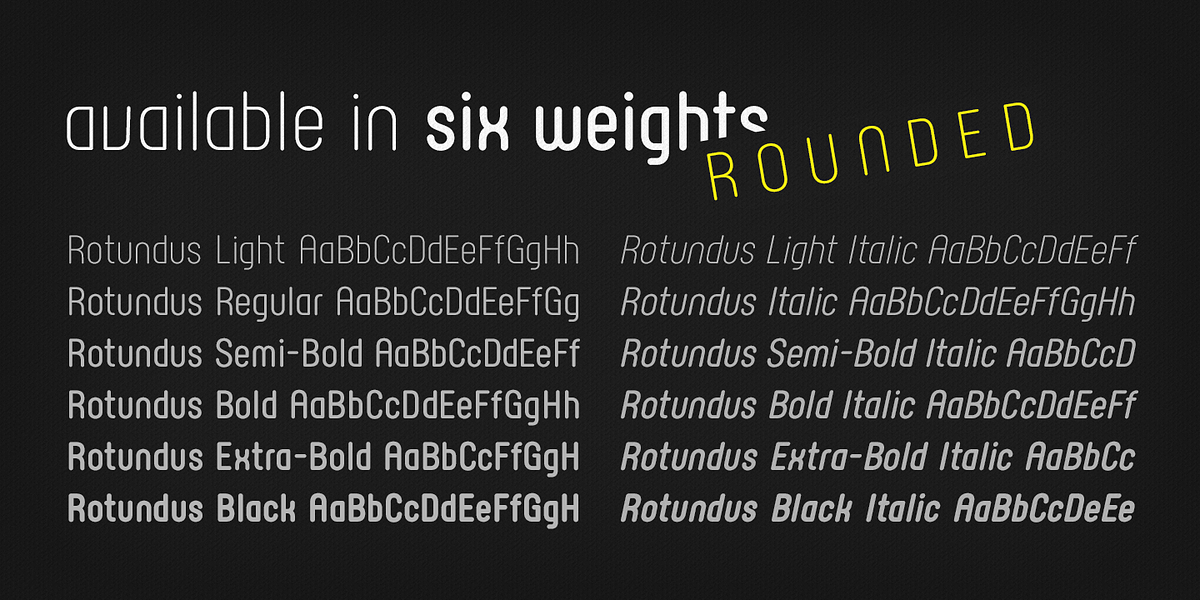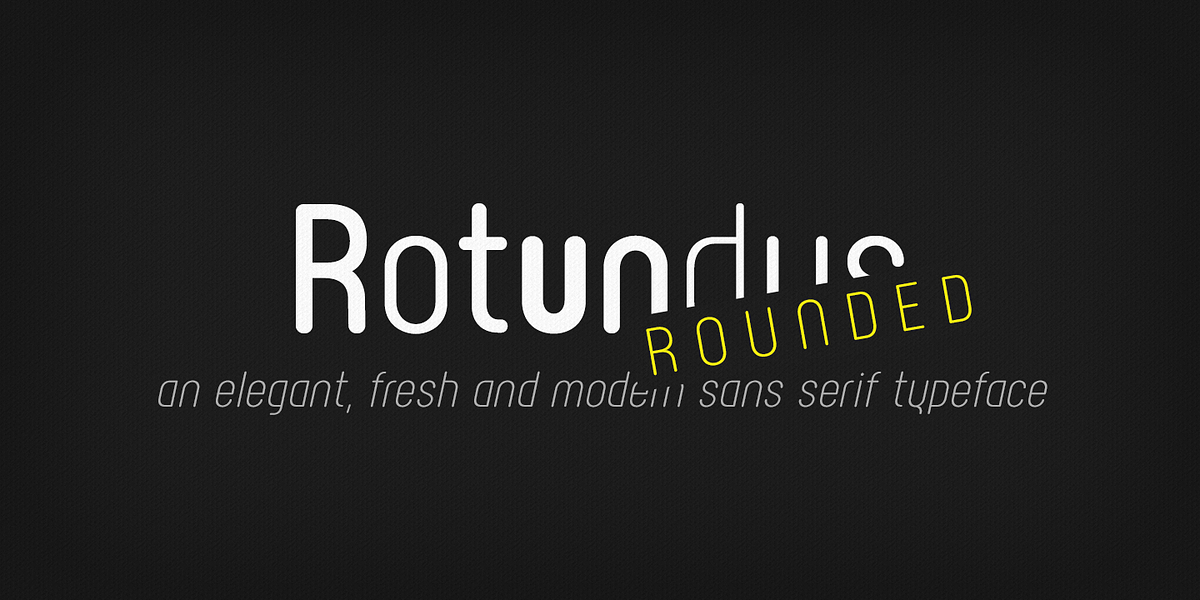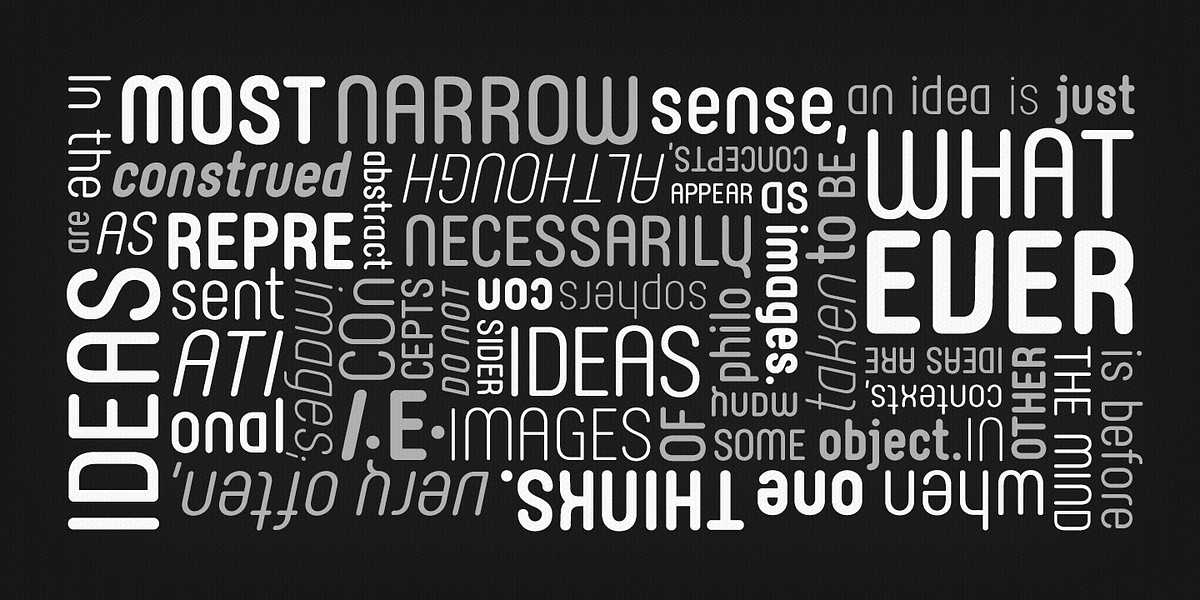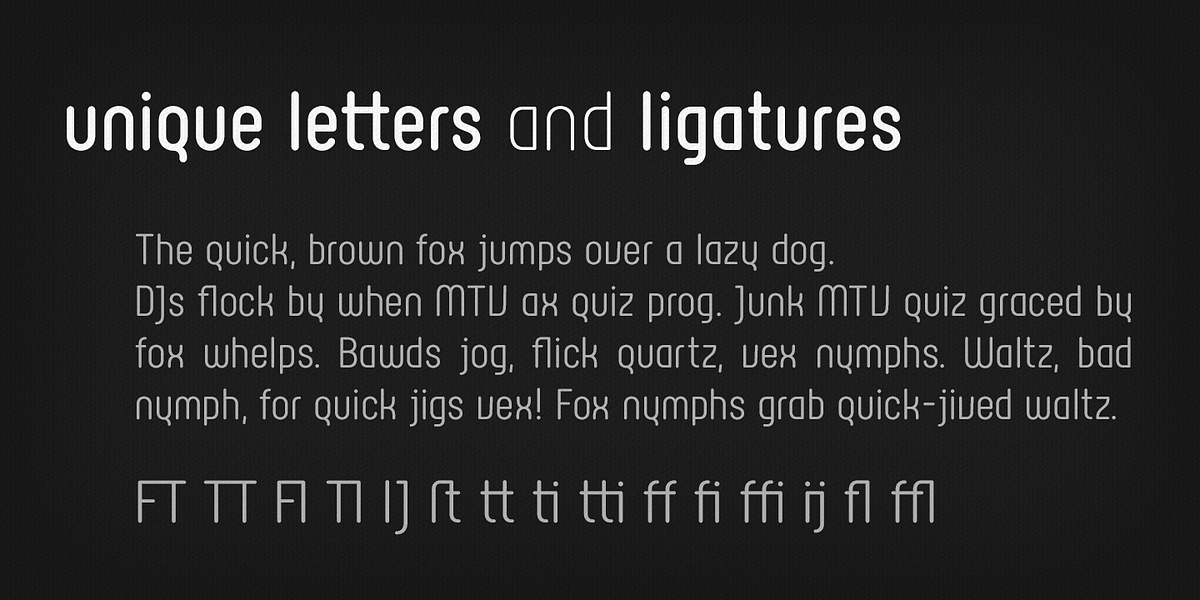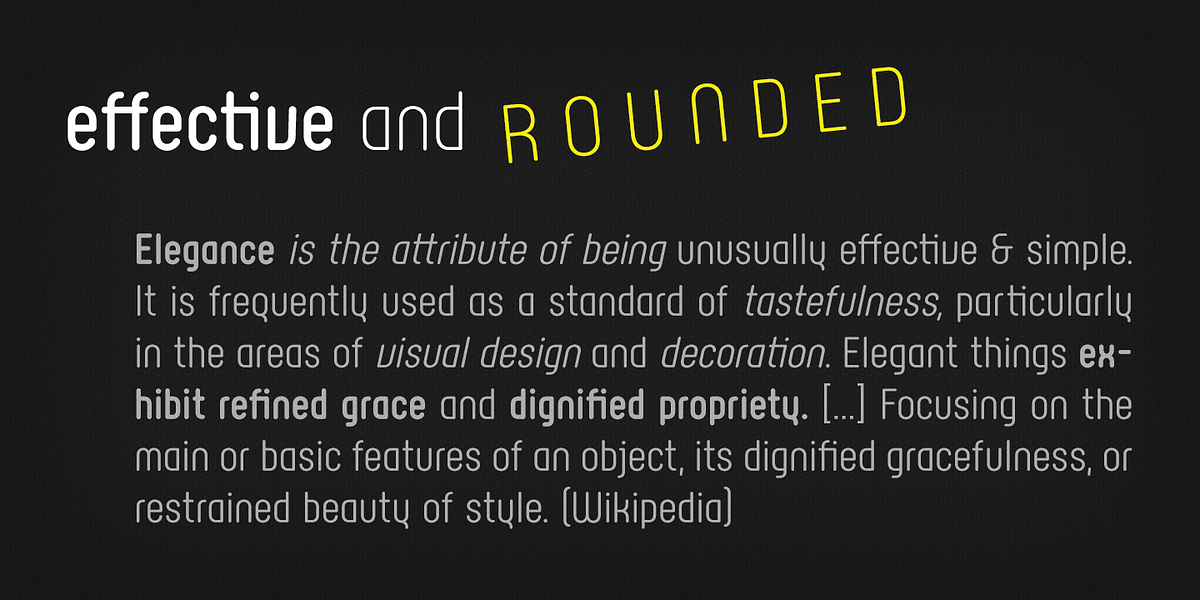
Rotundus Rounded
Rotundus Rounded is a contemporary sans serif typeface characterized by its geometric shapes and rounded edges. Its unique letterforms, combined with a tall x-height and condensed width, contribute to good legibility even at smaller sizes. The font family comes in six weights with matching italics and includes exclusive ligatures and extensive OpenType features.